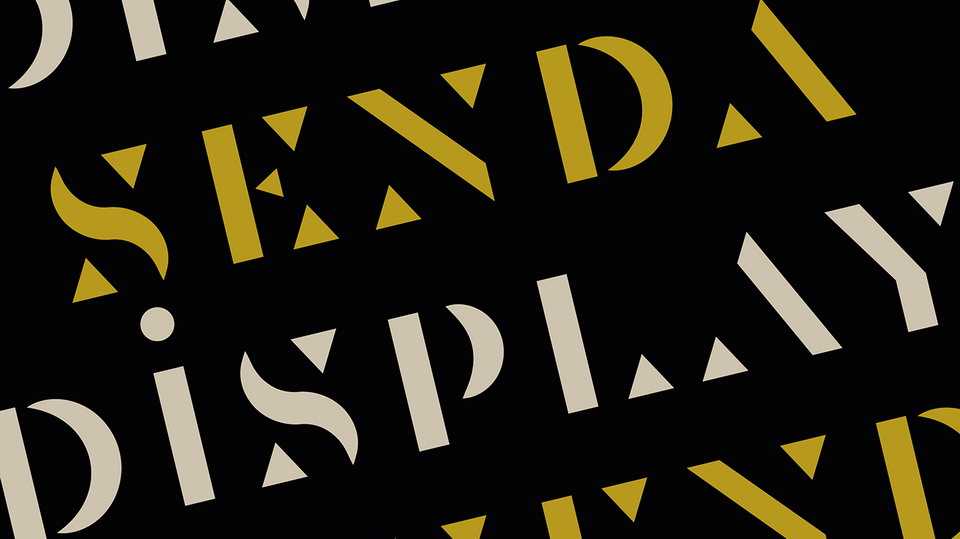
Download Senda font, a custom stencil font that was born from the branding identity. It associated each side with a geometric shape, left side being represented by a triangle and right side by a circle.